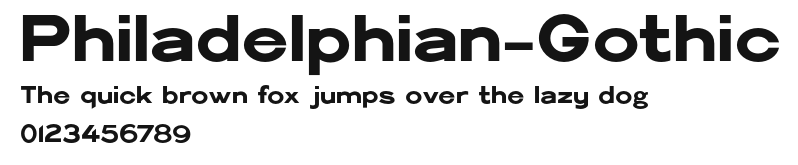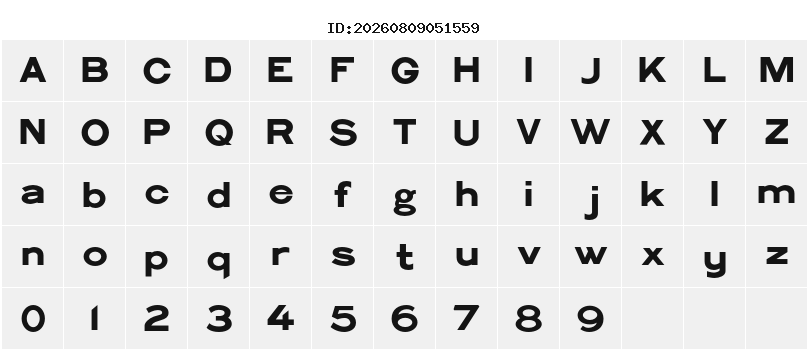
Philadelphian-Gothic Preview
• Font Name: Philadelphian-Gothic
• Font Style: Gothic
• Full Font Name: Philadelphian-Gothic
• PostScript Name: Philadelphian-Gothic
About Philadelphian-Gothic.otf
Philadelphian-Gothic.otf is a modern, elegant sans-serif font designed for ultimate readability and visual harmony. Perfect for branding, headlines, web design, and print materials.